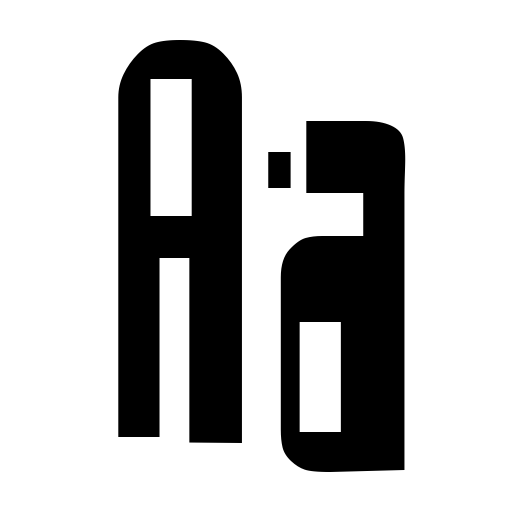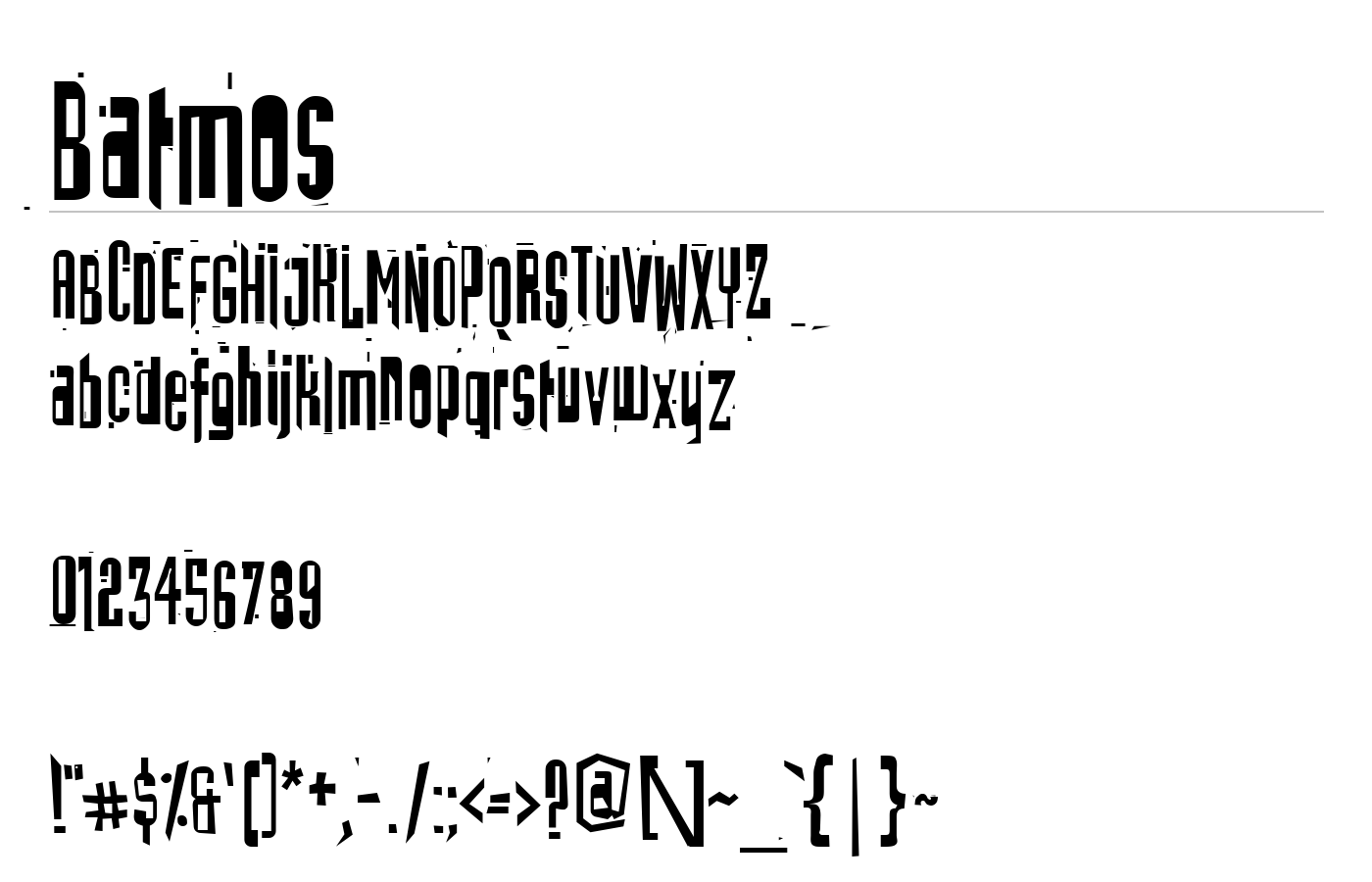
Batmos is a bold, condensed sans serif font with a modern, edgy vibe characterized by its tall, narrow letterforms and high contrast between thick and thin strokes. Its geometric shapes and sharp angles give it a distinctive, tech-inspired look, making it ideal for striking headlines, posters, and branding that seeks to stand out with a futuristic or urban style. This font works well where impact and a strong visual presence are needed, especially in creative, fashion-forward, or digital contexts.
Batmos Font